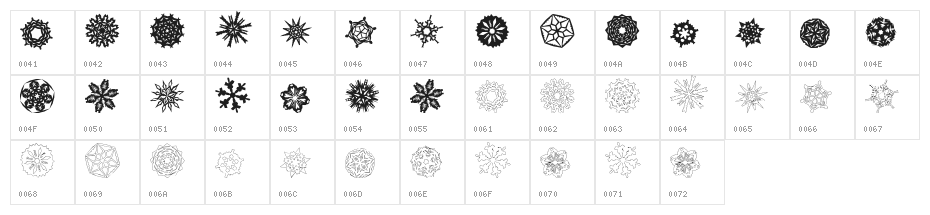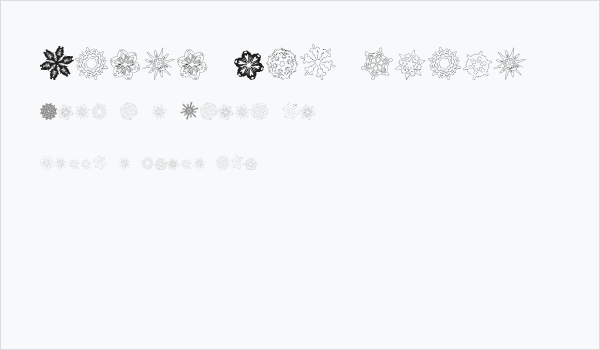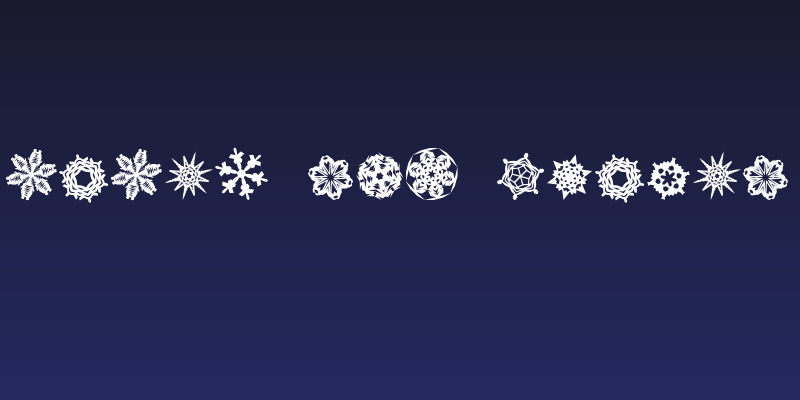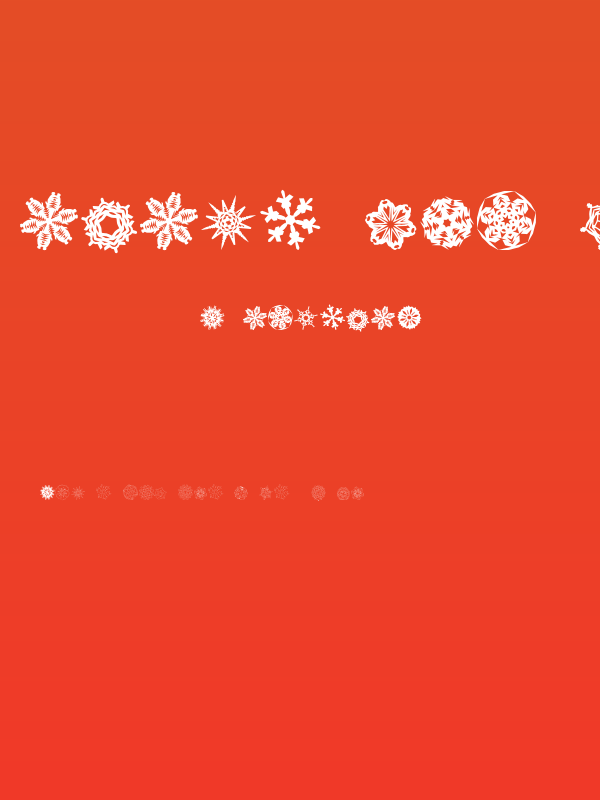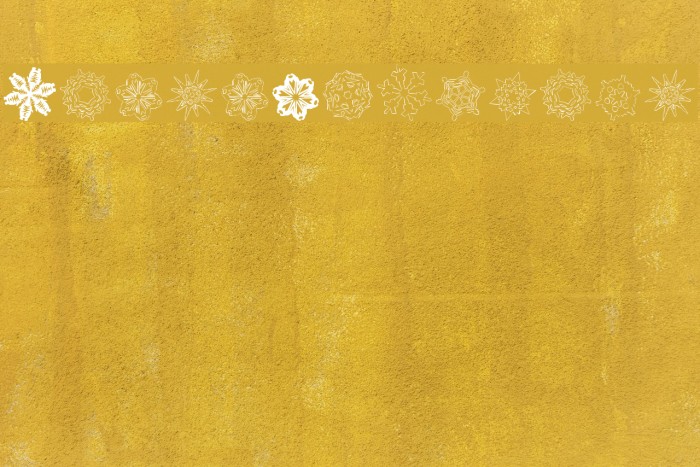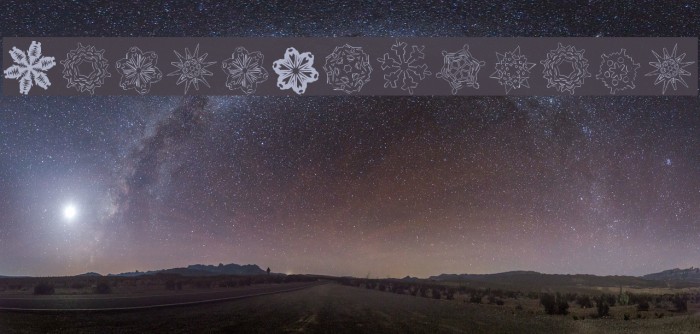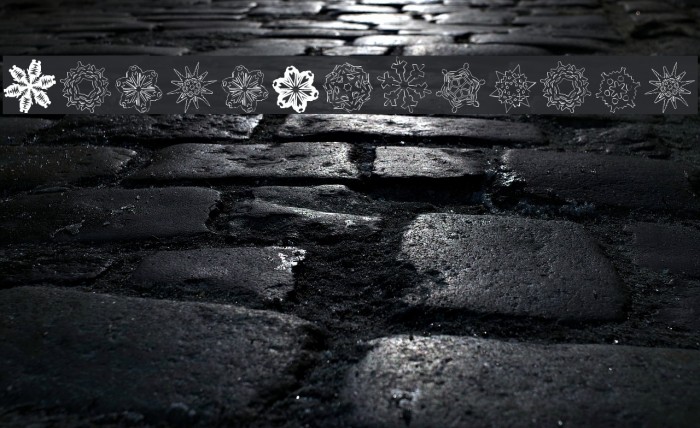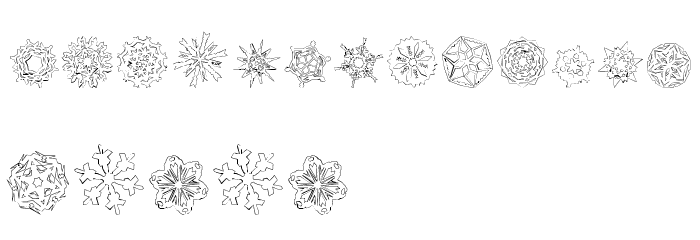
Paper Snowflakes Font
Paper Snowflakes Description
A decorative display font composed of intricate snowflake and paper-cut shapes, each character represented by a unique snowflake design with both filled and outlined styles, evoking a handcrafted, festive feel.
| Overall Style | Decorative, Festive, Handcrafted |
| Use Case | Headlines, Logos, Themed graphics, Decorative elements |
| Proposed Projects | Holiday cards, winter event posters, seasonal branding, festive invitations, craft projects. |